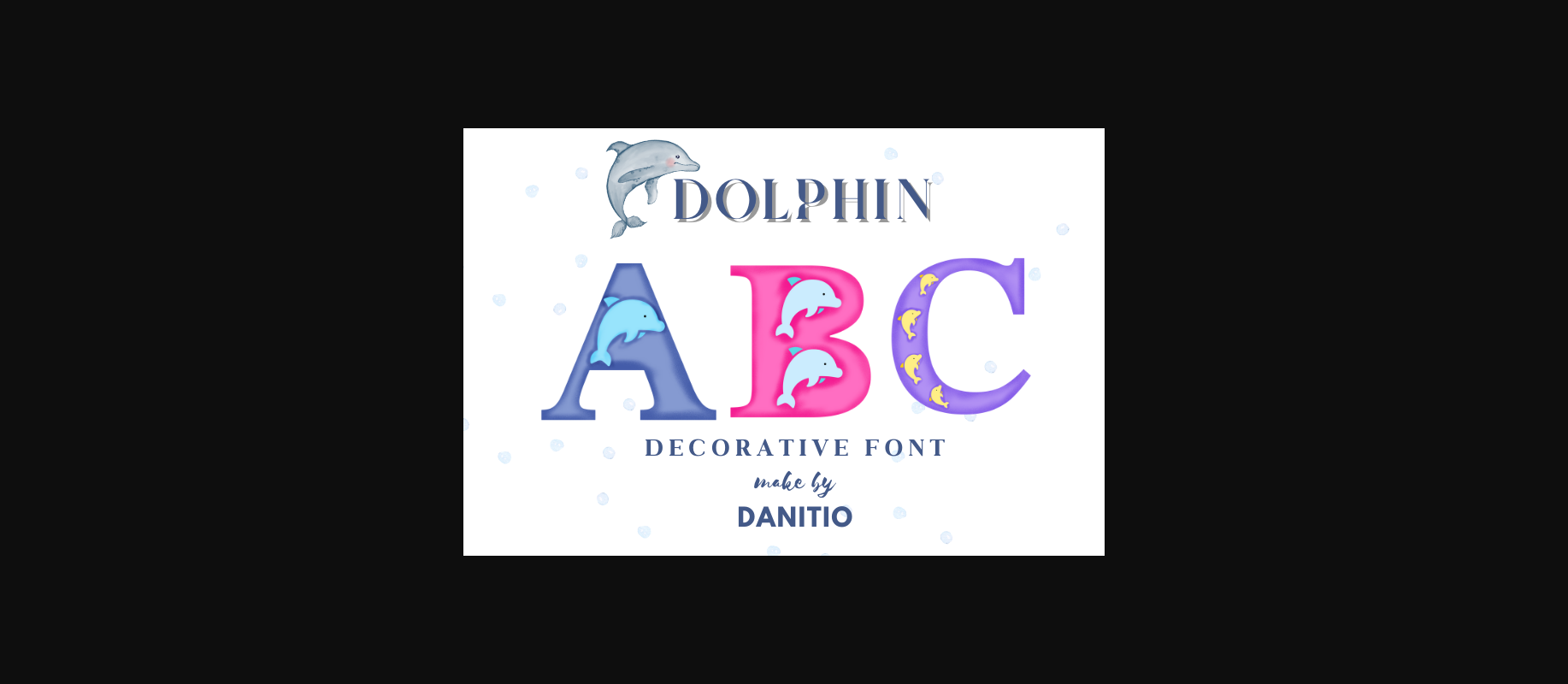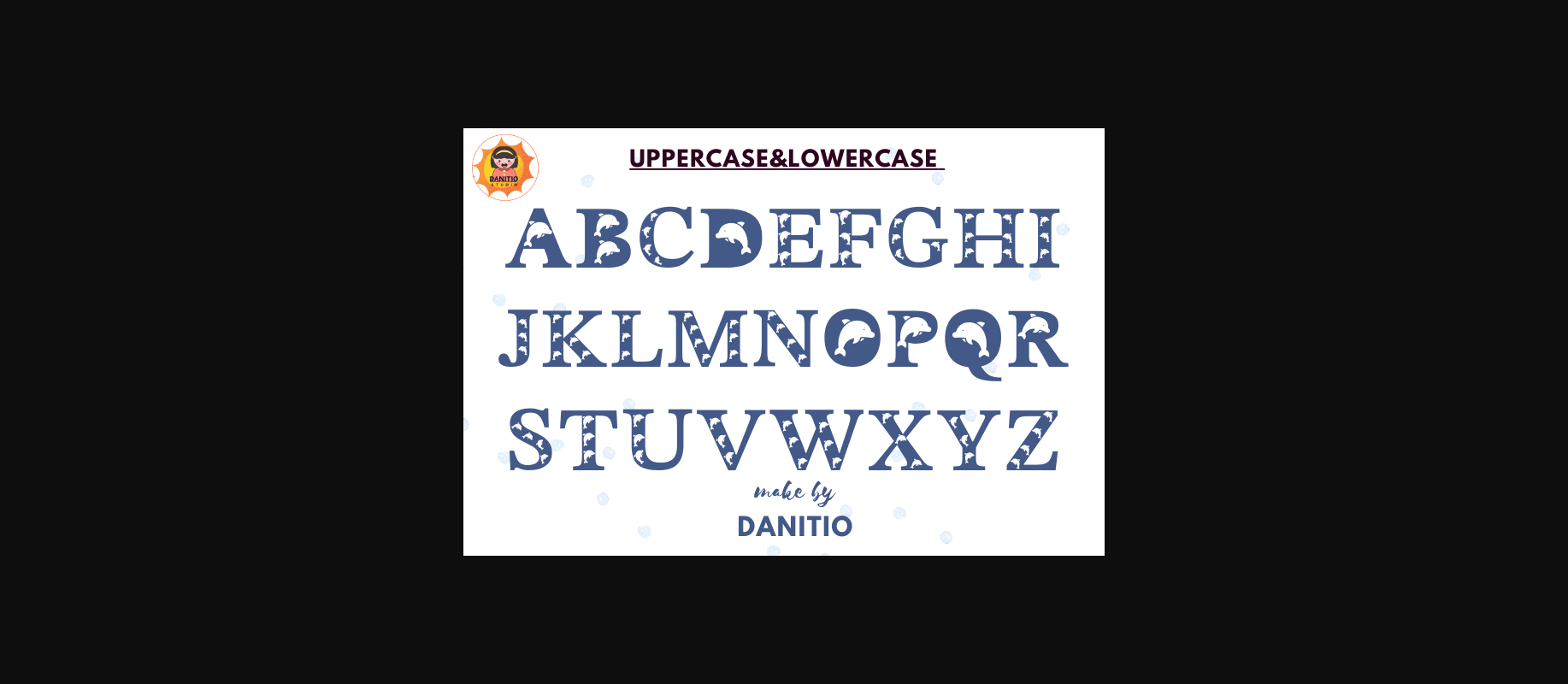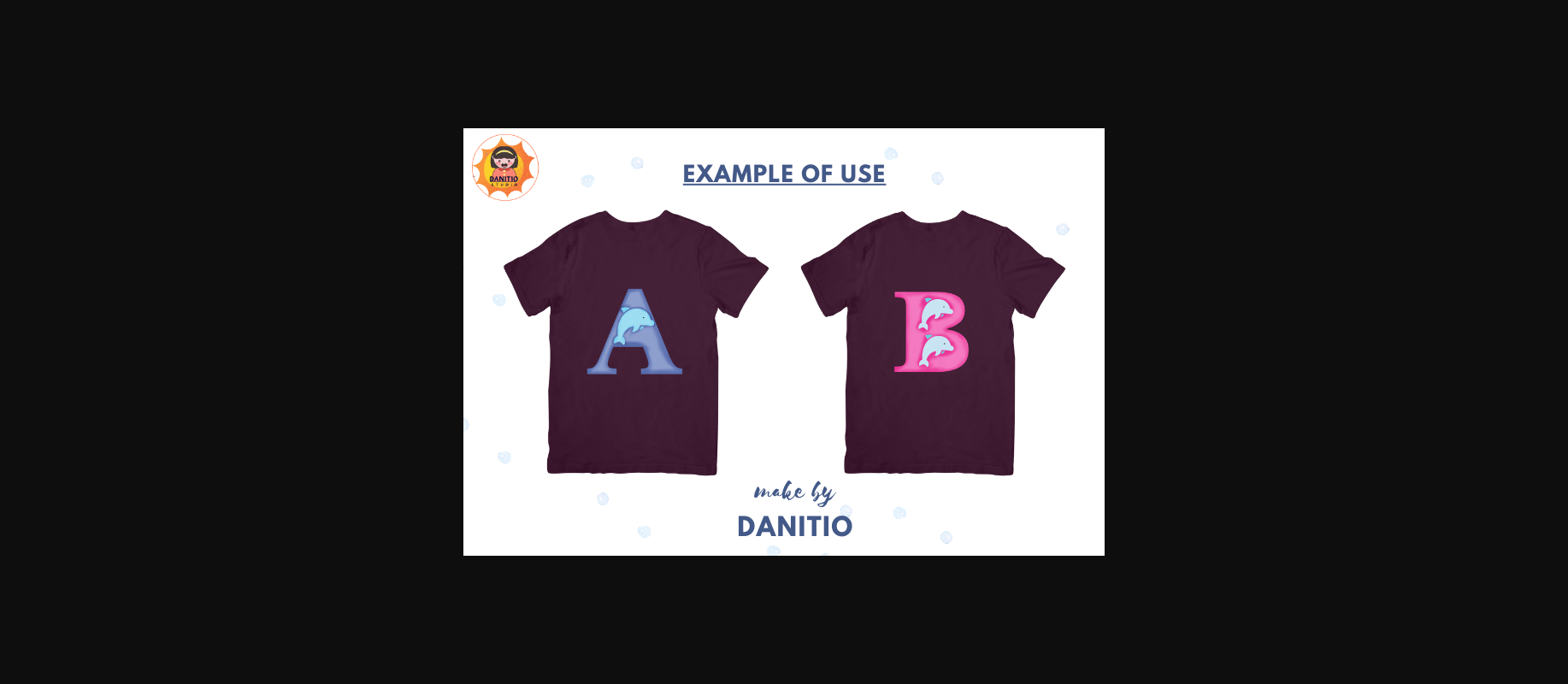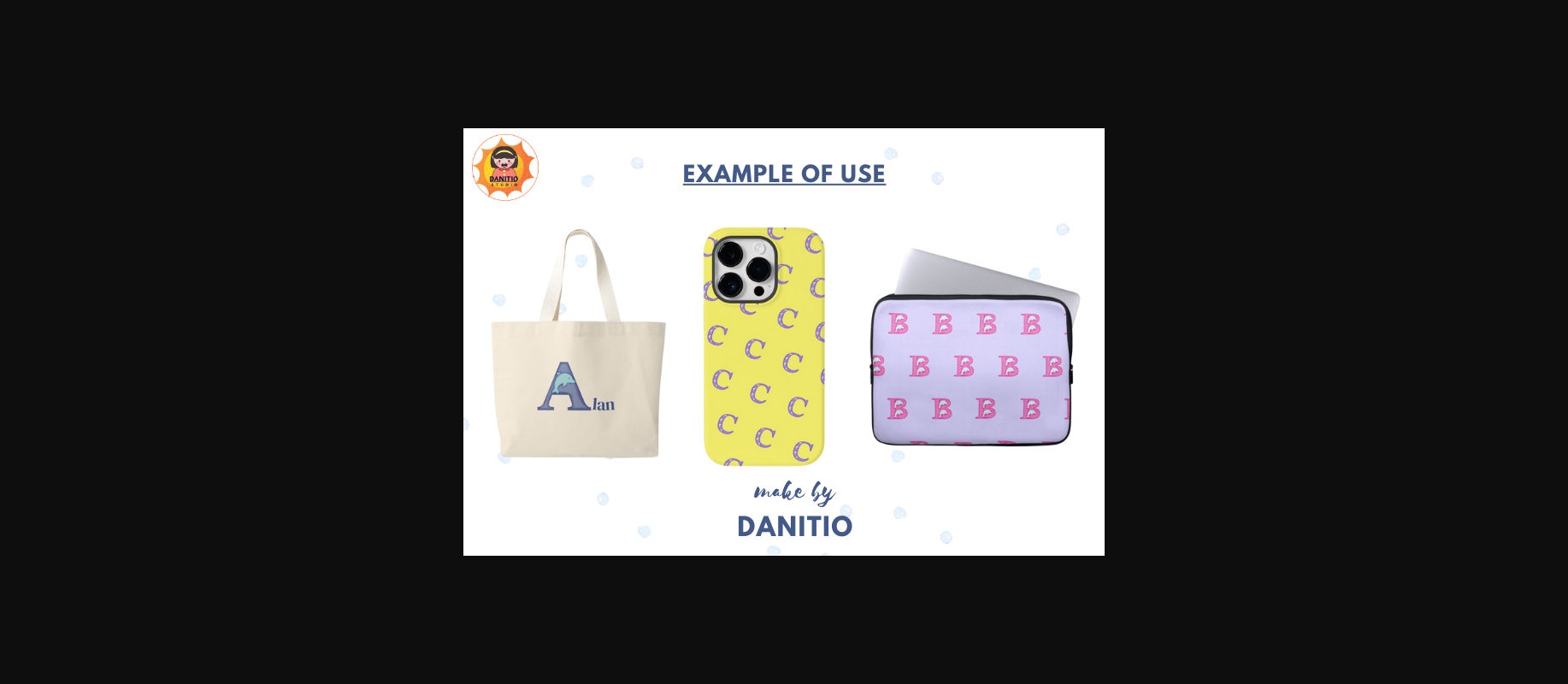
About Dolphin Font
Dolphin is a decorative typeface. which combines letters decorated with super cute dolphins. This pattern is to give a touch of cuteness to every design. Perfect for birthday cards, t-shirts, mugs, tote bags, and any other product you deem appropriate. Hope you enjoy my fonts.